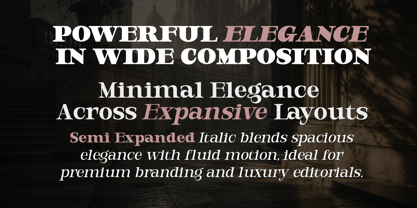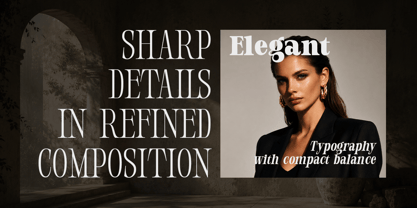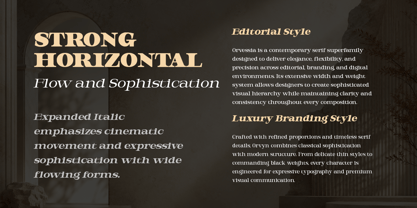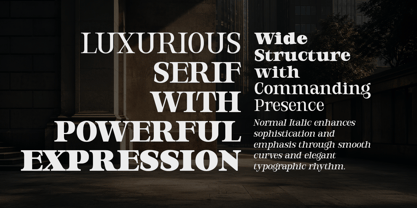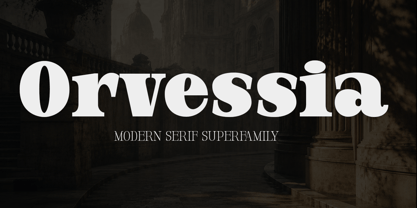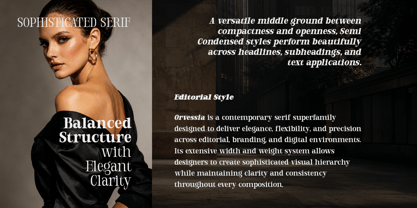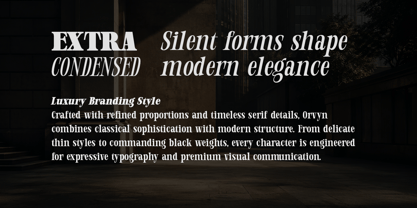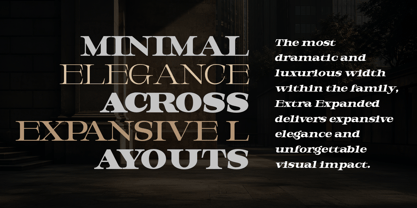
Orvessia
Orvessia is a modern serif superfamily crafted for designers who demand flexibility, sophistication, and typographic precision. Featuring an extensive width system from Extra Condensed to Extra Expanded, combined with both Upright and Italic styles, Orvessia forms a complete professional type system with a total of 126 families.
Blending classical serif elegance with contemporary construction, Orvessia delivers sharp details, refined contrast, and balanced proportions suitable for editorial design, luxury branding, publishing, packaging, advertising, and digital interfaces. Every width carries its own visual rhythm while maintaining consistency across the entire family.
Whether used for compact headlines, immersive editorial layouts, or expansive luxury typography, Orvessia adapts seamlessly while preserving its distinctive voice: elegant, confident, and highly versatile.